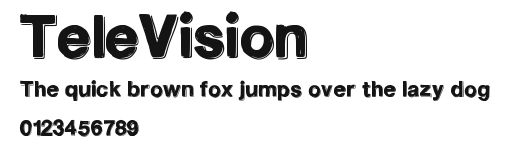
• Font Name: TeleVision
• Full Font Name: TeleVision
About TeleVision.ttf
TeleVision.ttf is a modern, elegant sans-serif font designed for ultimate readability and visual harmony. Perfect for branding, headlines, web design, and print materials.